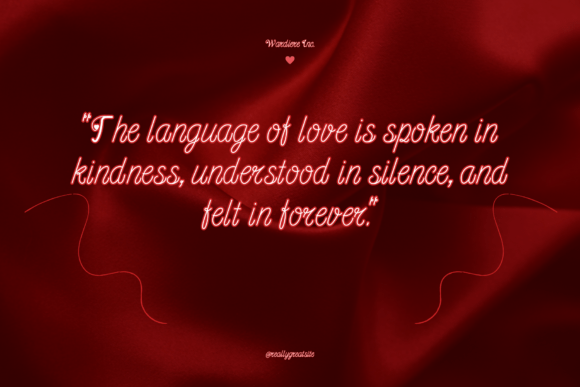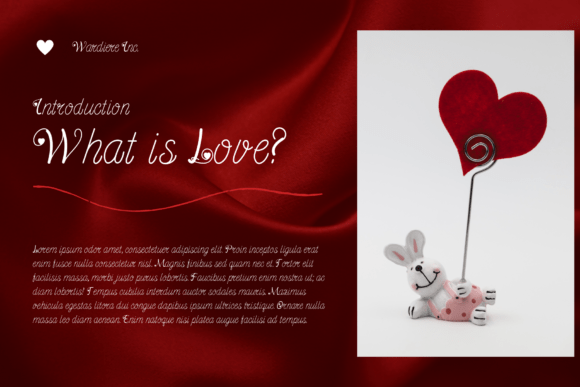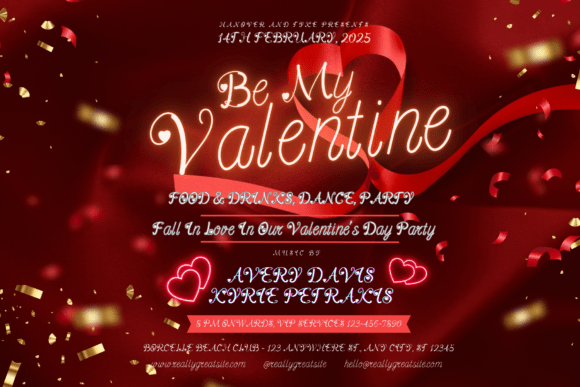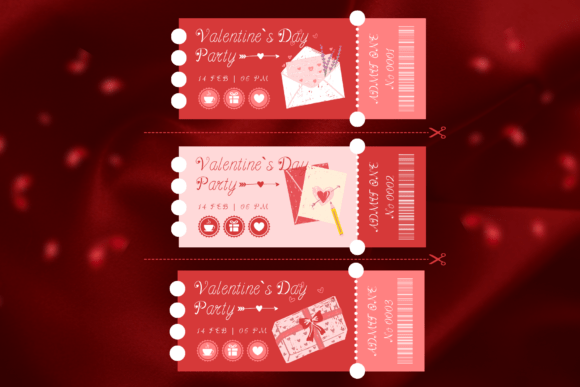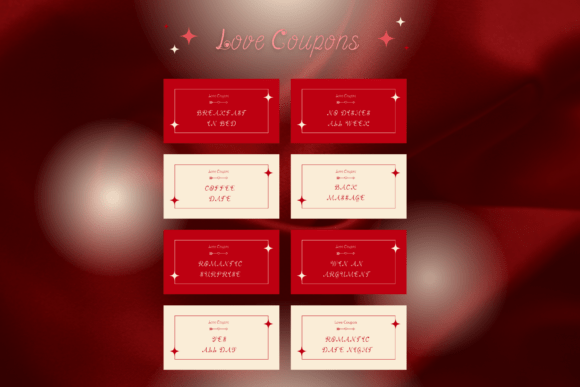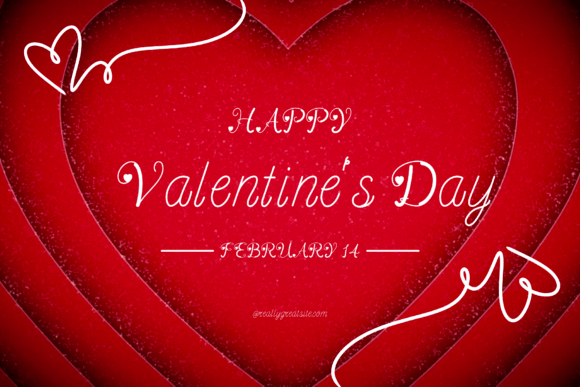
Introduction to Love Dimension Font
Love Dimension is a stylish and incredibly elegant script font.
Key Features of Love Dimension Font
Why Choose Love Dimension Font?
Love Dimension Font offers exceptional quality and versatility, making it a valuable addition to your design toolkit. Whether you’re creating for personal projects or commercial use, Love Dimension Font delivers professional results.